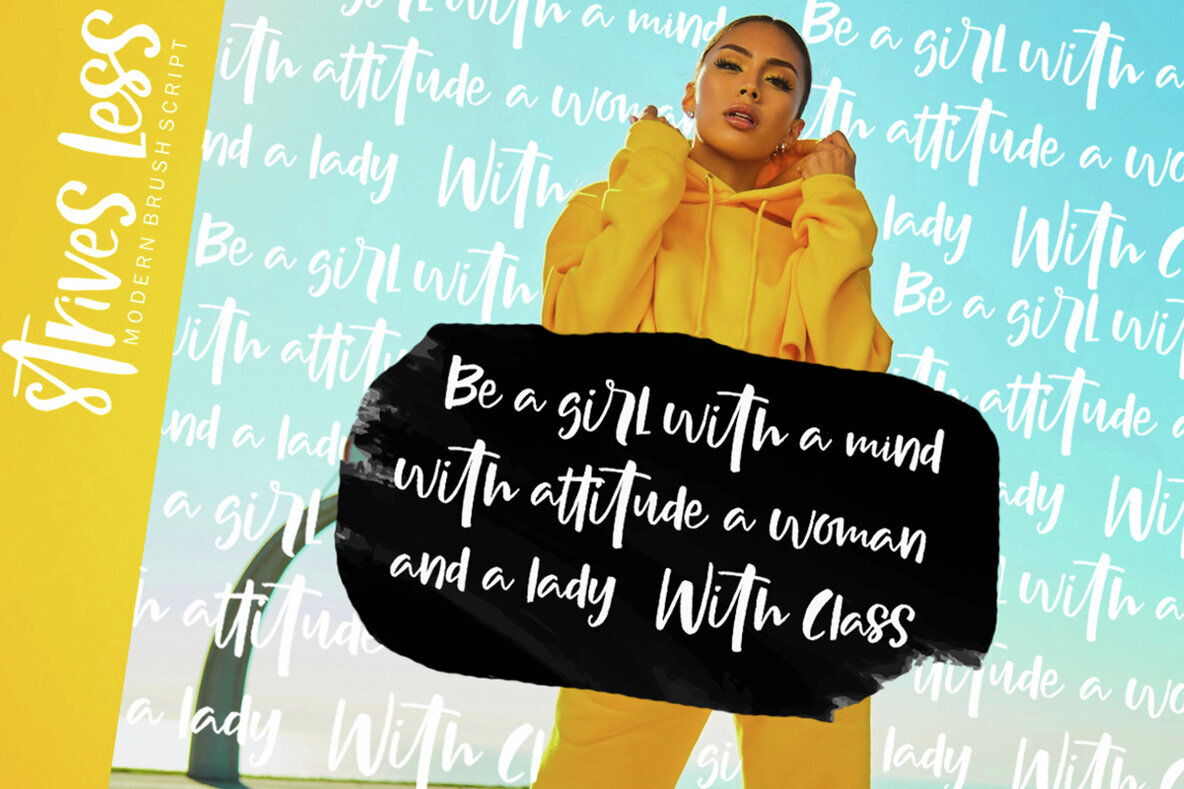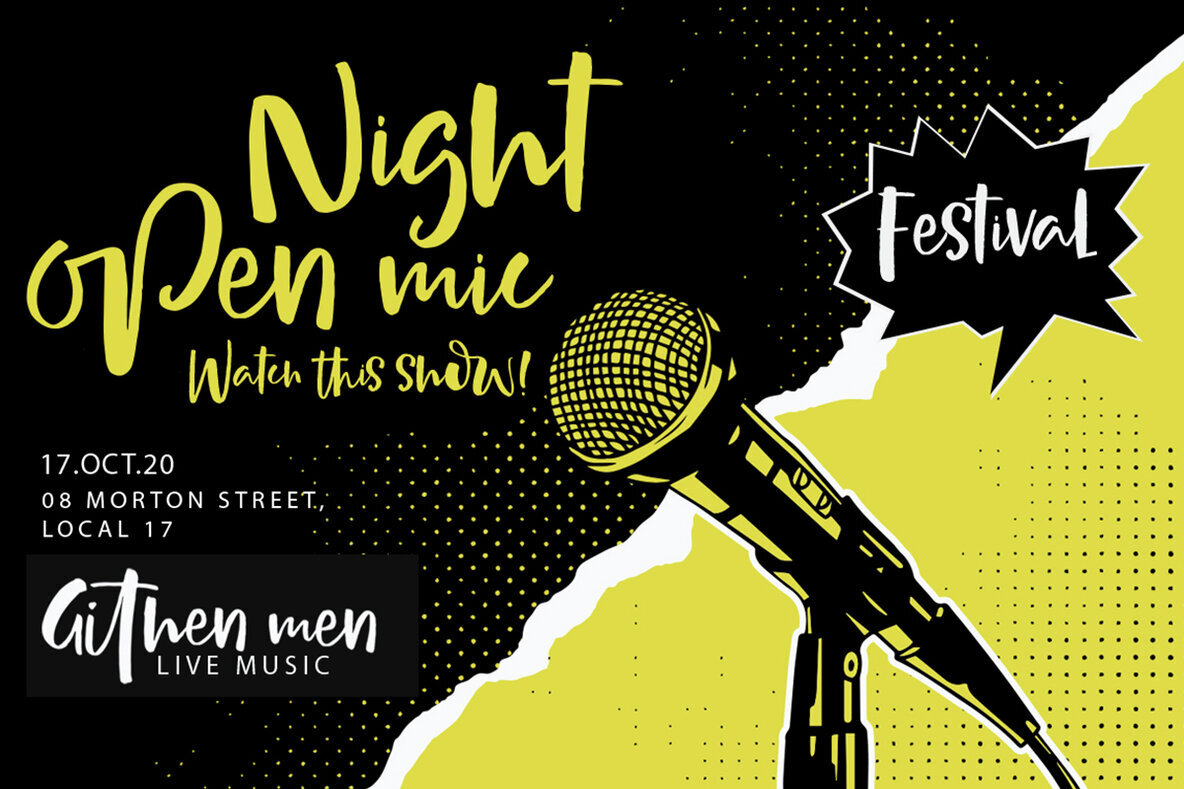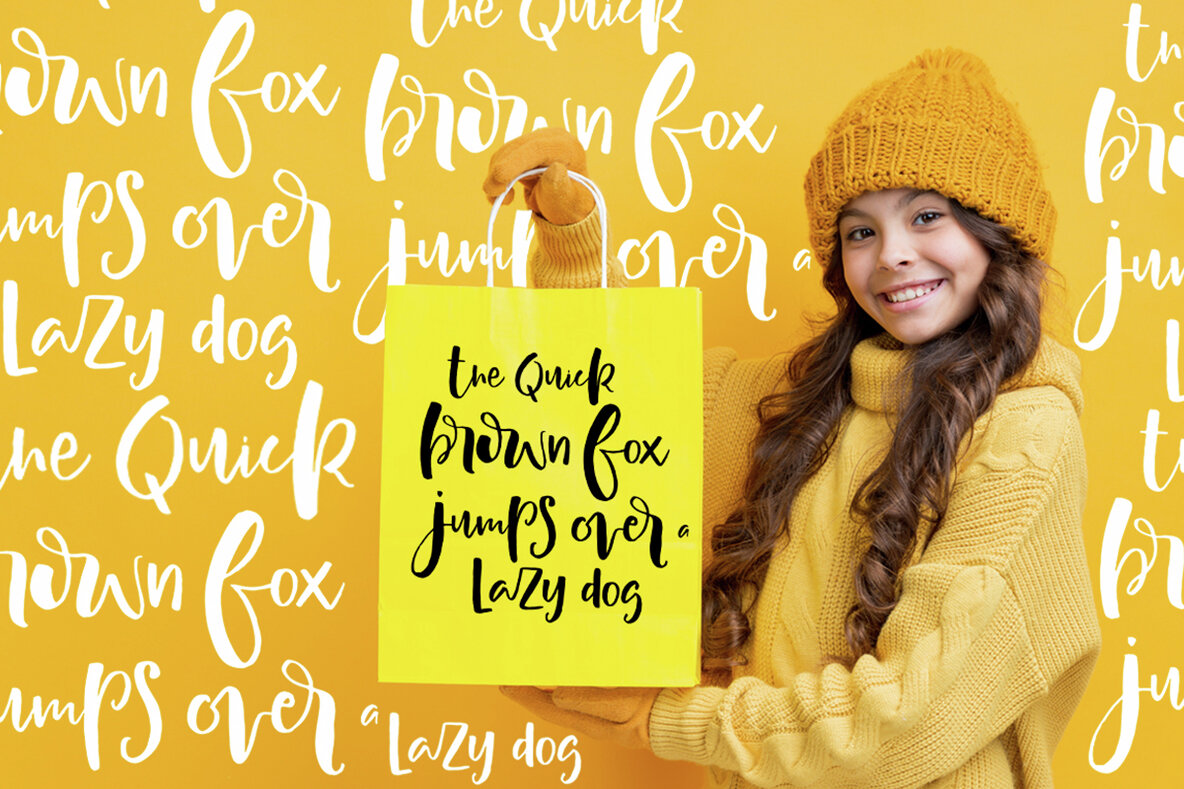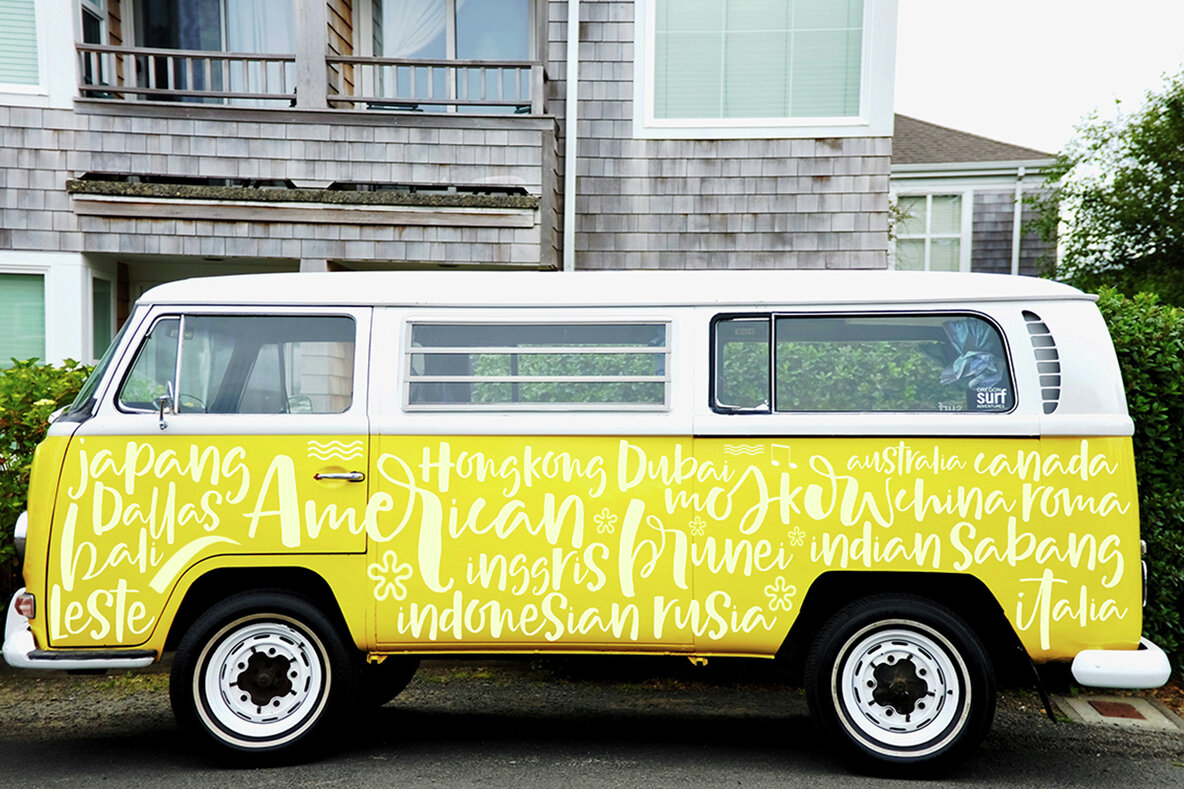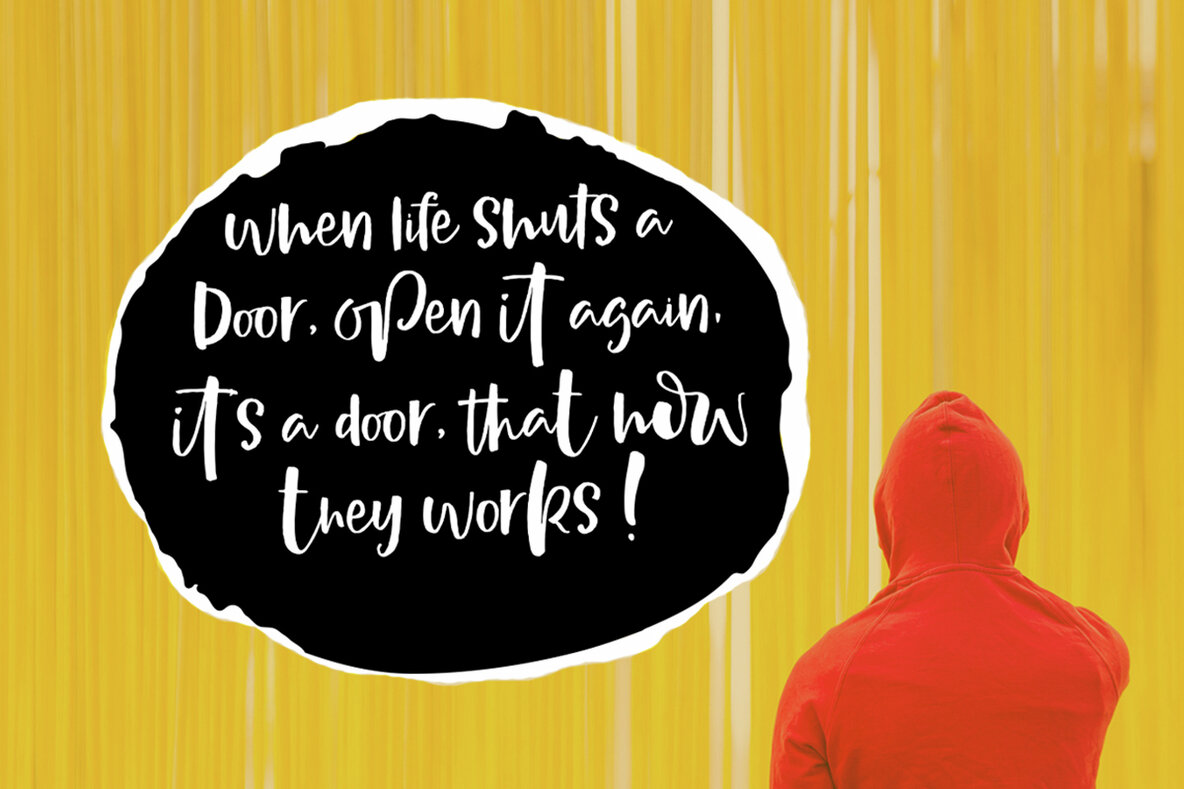
Strives Less
Strives Less is a hand brush script font crafted with brushes and ink, perfect for projects needing a touch of authentic artistry. Its bold strokes are well-suited for designs that incorporate thick watercolor elements or elaborate handwriting styles. Whether you're working on blog titles, posters, or wedding materials, this font injects creativity into your work. It's also ideal for t-shirts, clothing designs, book covers, business cards, greeting cards, and branding or merchandise projects where a personal touch is essential.
The typeface includes a full set of characters, ensuring versatility and comprehensive use in various design contexts. It offers uppercase, lowercase, alternative characters, fasteners, punctuation, and numbers, making it adaptable for a wide range of applications. Additionally, with multilingual support, Strives Less extends its reach to a global audience, offering a seamless experience for designers working in diverse languages.